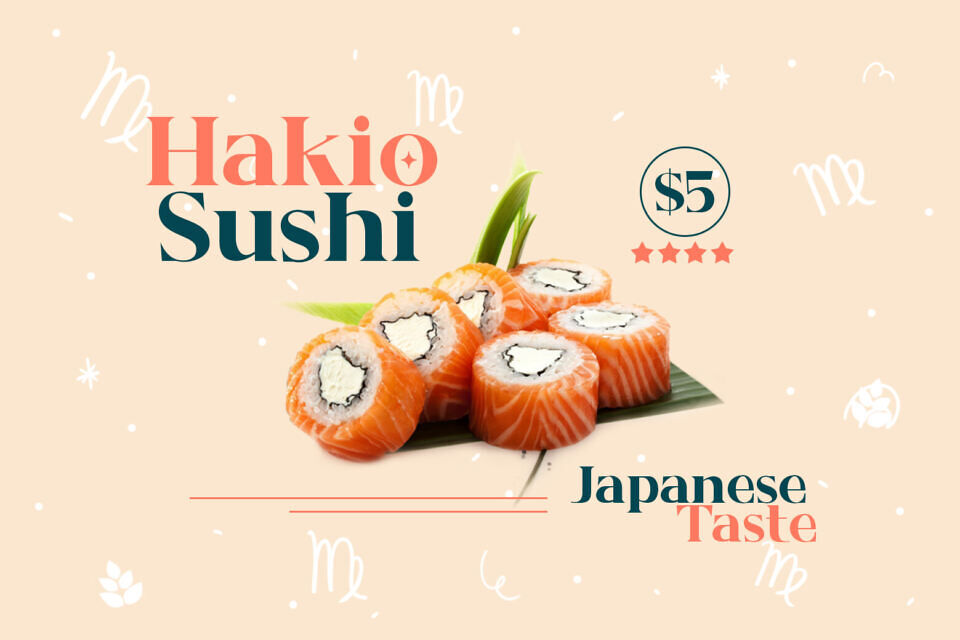
Virgo Delight Font
Virgo Delight is a modern serif font. It is perfect for posters, logos, magazines, book covers, banners, and many more! Get this amazing font, and use it to create lovely designs.